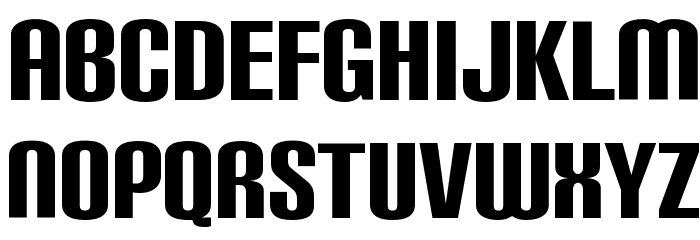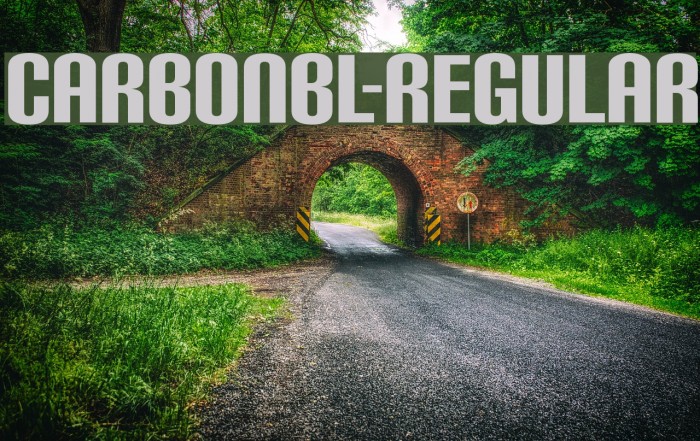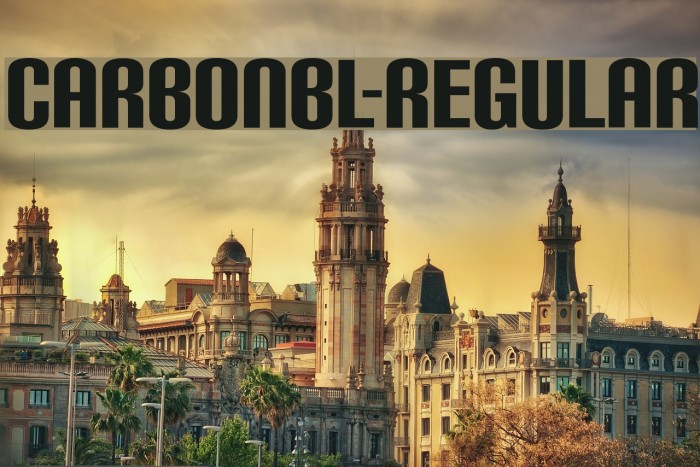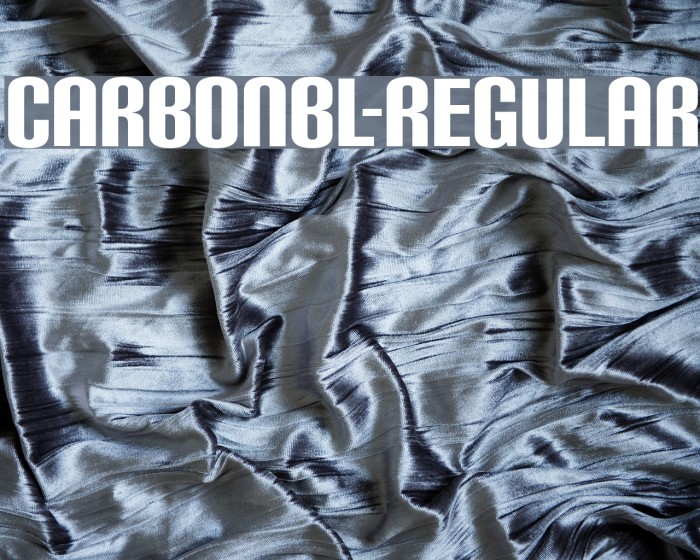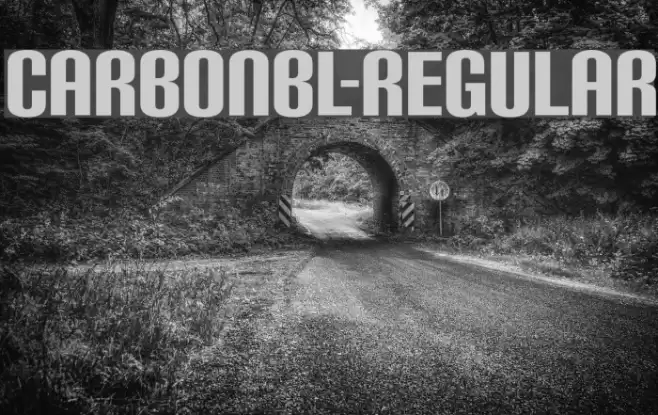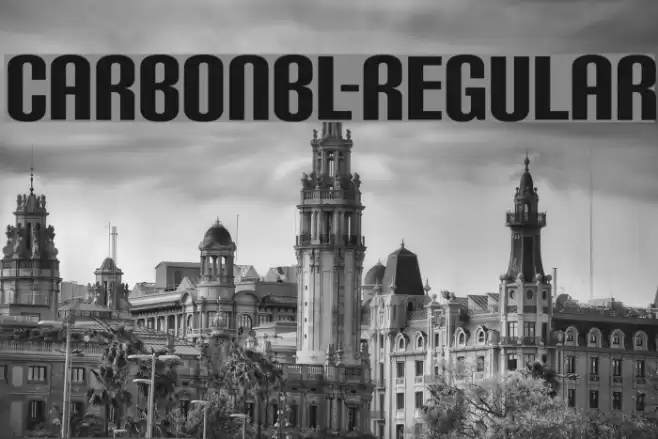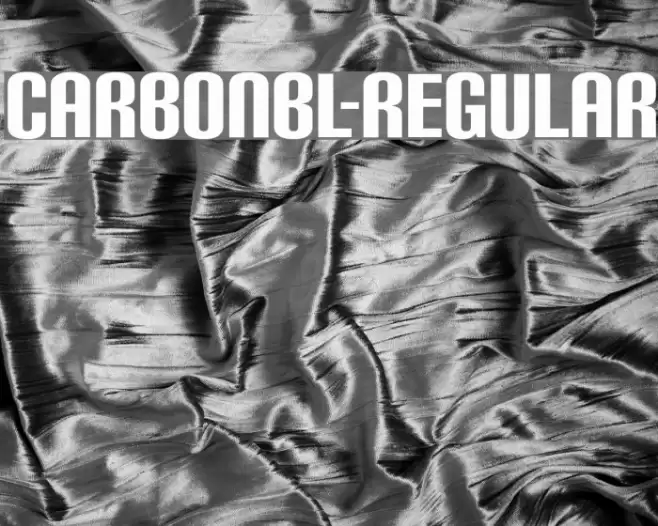
CarbonBl-Regular Font
This font features a bold and modern design with a strong presence. The characters are tall and slightly condensed, giving them a robust and impactful appearance. The strokes are consistent in width, providing a uniform look across all characters. The uppercase and lowercase letters maintain a similar style, ensuring readability and cohesion. The numbers are clear and distinct, making them easily recognizable. Special characters are well-defined, adding to the font's versatility. Overall, this font is suitable for projects that require a contemporary and assertive typeface.
A bold, modern font with a strong and impactful design.
- Proposed Projects: Ideal for headlines, posters, branding, and advertising materials.